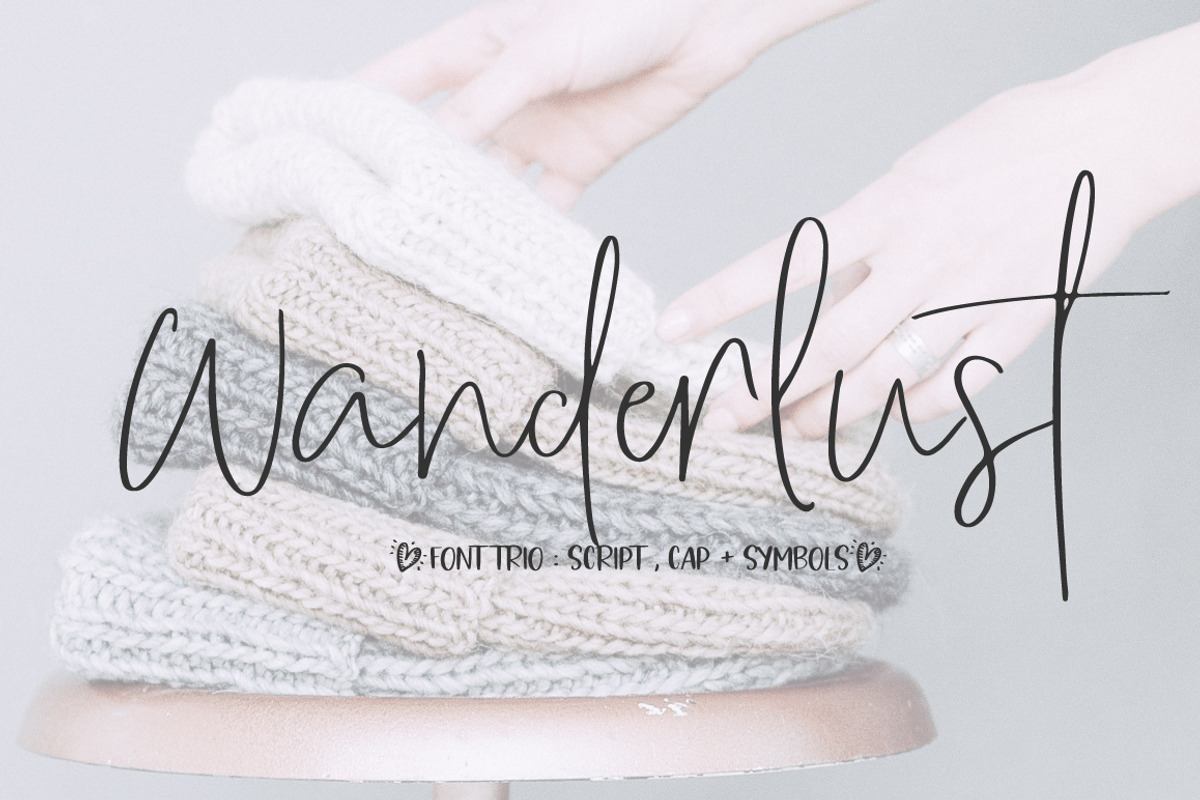
Please note, you must purchase this font for commercial use. However, you can easily download Wanderlust Font Trio Free Download for personal use and testing purposes. Wanderlust Font Trio is a versatile and stylish font bundle that offers three unique typefaces to enhance your creative projects. Perfect for travel blogs, adventure brands, posters, and more, this font trio adds a blend of elegance and playfulness to your designs. With its combination of clean sans-serif, flowing script, and bold lettering, Wanderlust Font Trio Free Download provides endless possibilities for a variety of design styles. Whether you're creating a logo, a website design, or promotional materials, this font trio will bring a modern and adventurous feel to your work. Download Wanderlust Font Trio Free Download today and explore the dynamic range it offers before opting for a commercial license.